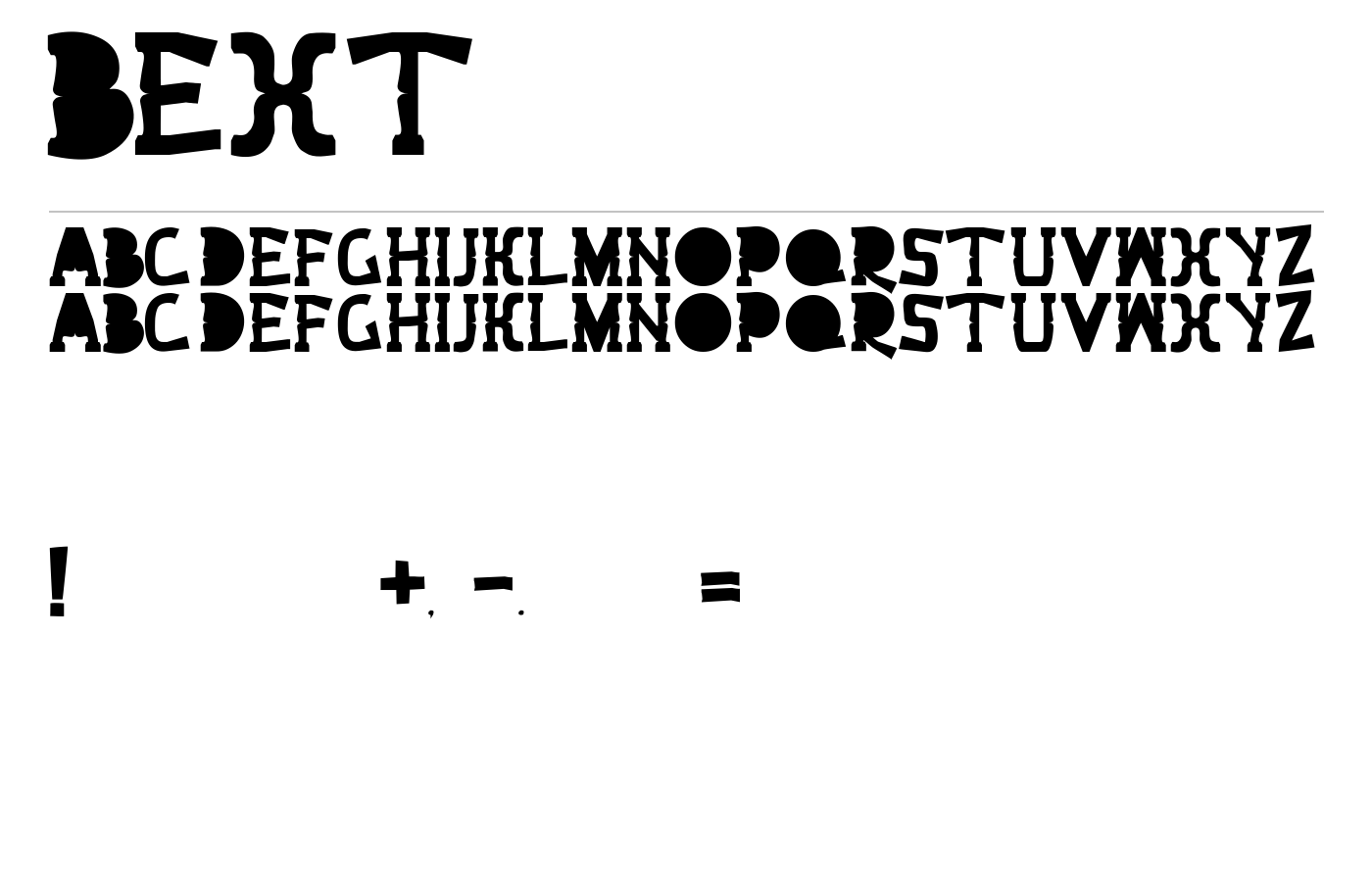
Bext Font is a bold, quirky slab serif typeface with thick, blocky serifs and a playful, irregular style that gives it a hand-crafted feel. Its heavy weight and uneven shapes make it ideal for eye-catching headlines, posters, and creative branding where a fun and distinctive personality is needed. This font works best in display settings where its unique character can stand out and add a touch of vintage charm mixed with a modern twist.
Bext Font
About Bext Font
| Font family | Bext Font |
| Designer | MRFrukta |